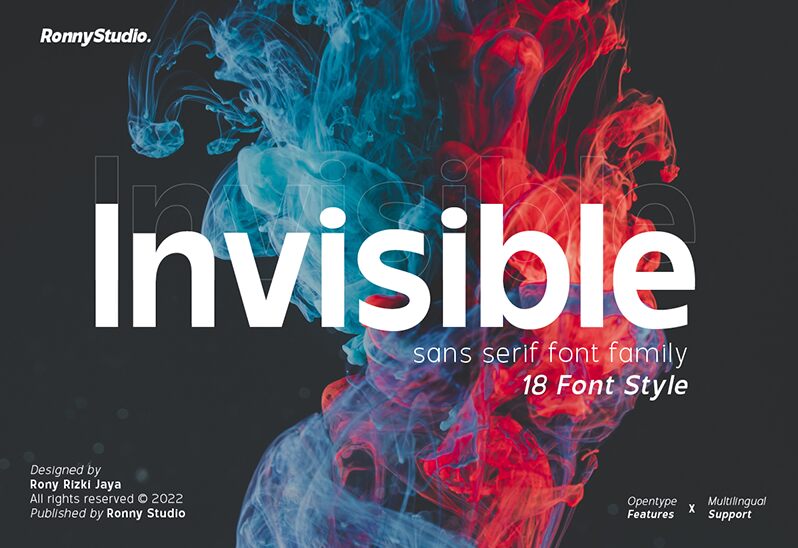
Invisible ExtraBold is a stunning sans-serif font designed by Ronny Studio. With its extra-bold weight, it's perfect for attention-grabbing headlines and titles, making it an excellent choice for branding projects and advertising campaigns. The unique style of Invisible ExtraBold adds a touch of elegance to any project while maintaining legibility and readability. Whether it's used for print or digital designs, this font is sure to make a statement. Its versatility makes it suitable for various projects such as product packaging, book covers, website headings, and more. Elevate your designs with Invisible ExtraBold - the perfect choice for those seeking a sophisticated yet modern look.